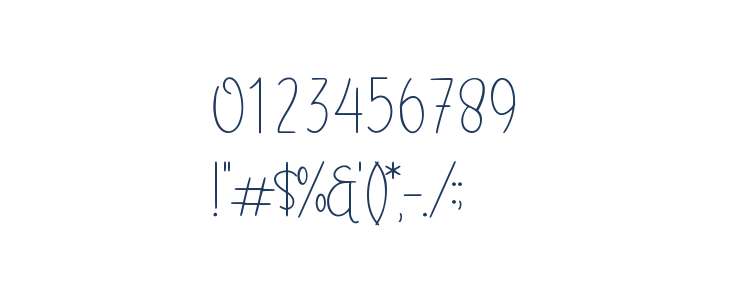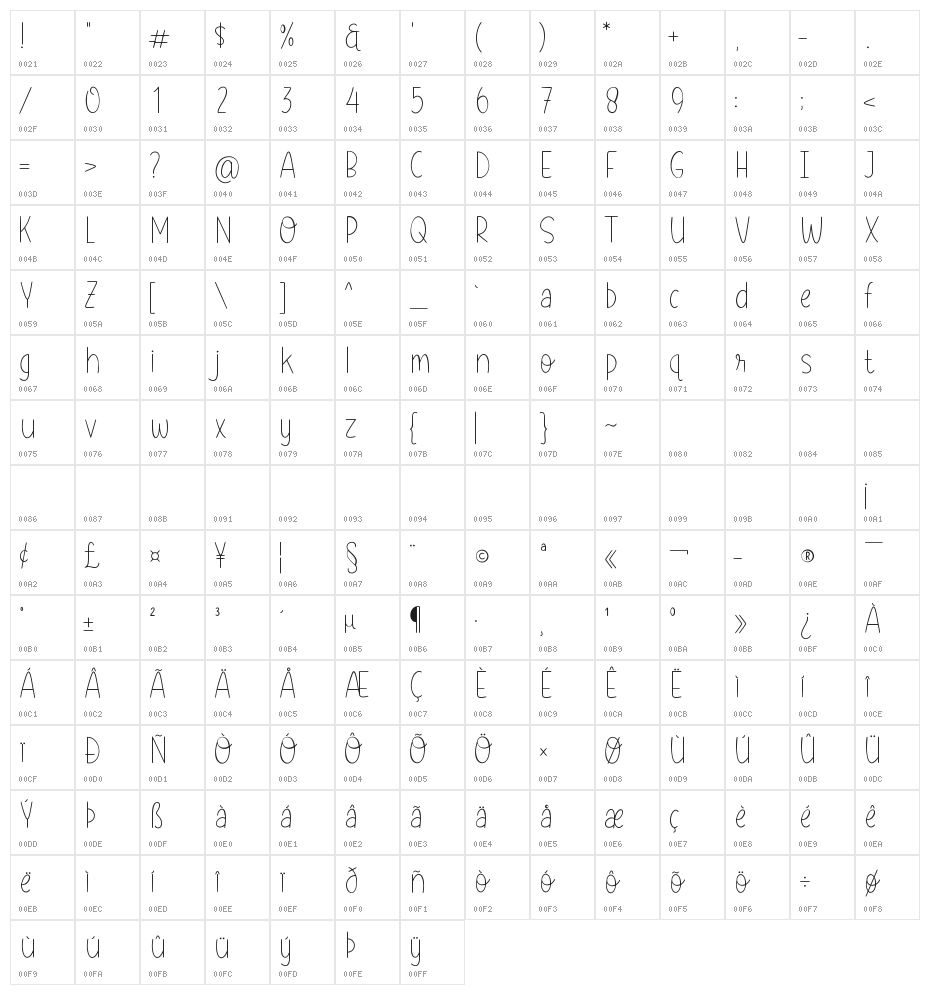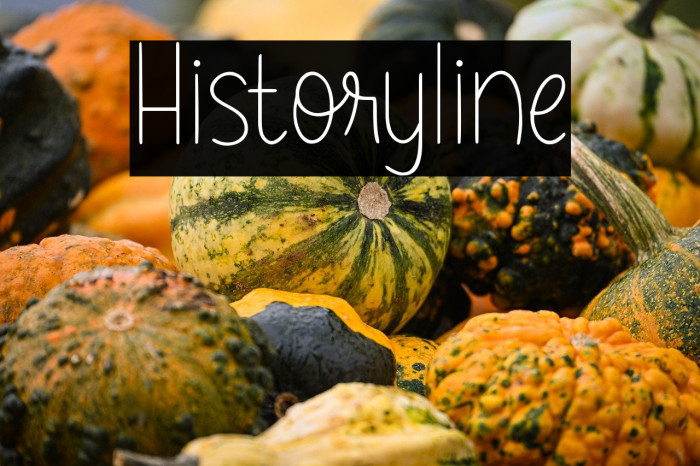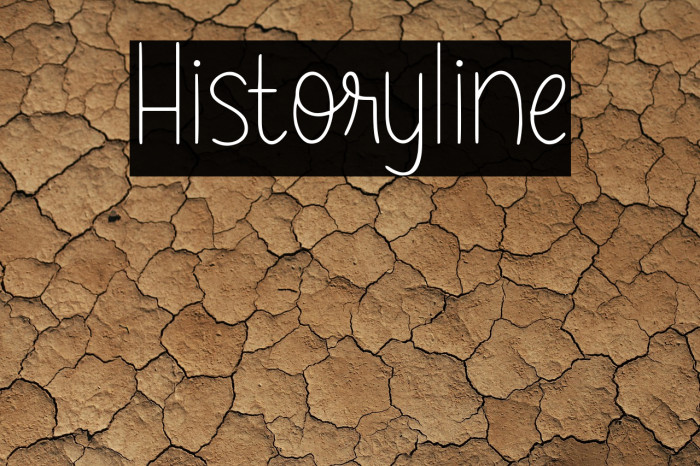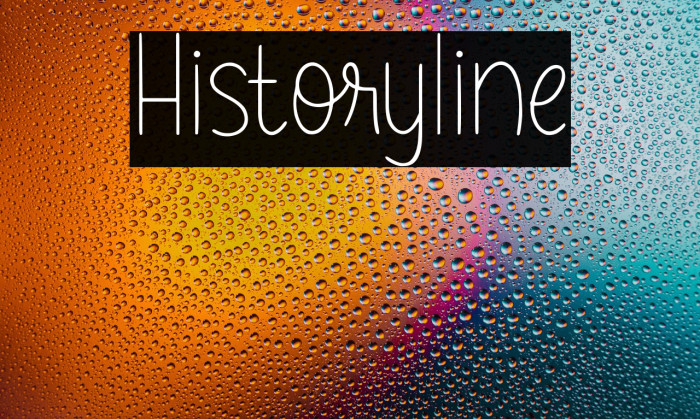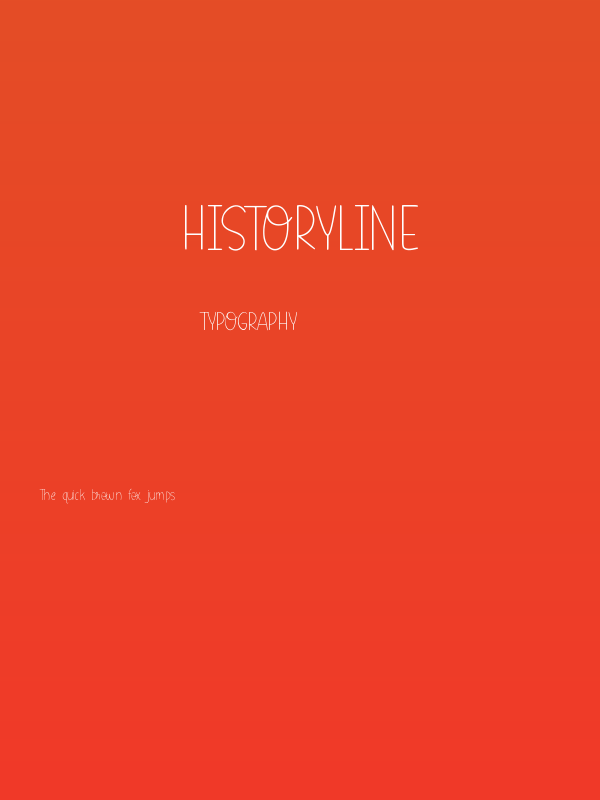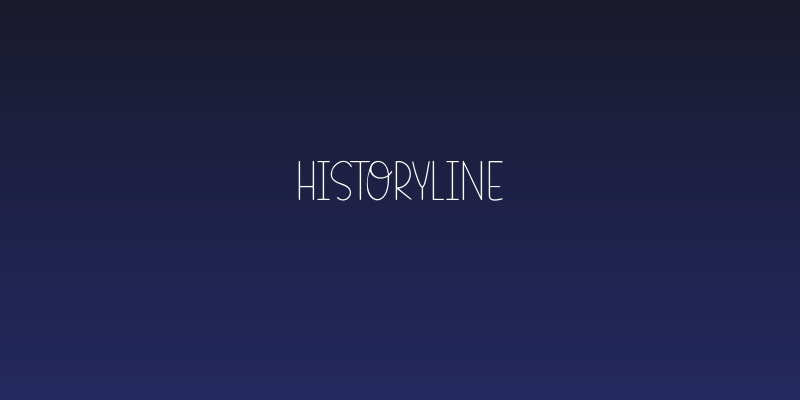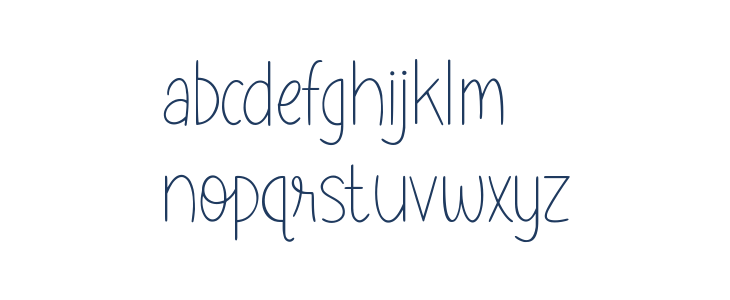
Historyline Font
Historyline Description
This font features a playful and whimsical design, characterized by its tall, narrow letterforms and slightly irregular strokes. The characters have a hand-drawn quality, with subtle variations that add a personal touch. The uppercase letters are particularly elongated, giving the font a unique and airy appearance. The lowercase letters maintain a consistent style, complementing the uppercase with their own quirky charm. Numbers and special characters follow the same design principles, ensuring a cohesive look across all elements. The font's overall style is casual and friendly, making it suitable for projects that require a touch of personality and creativity.
| Proposed Projects | Ideal for children's books, greeting cards, playful branding, and creative posters. |